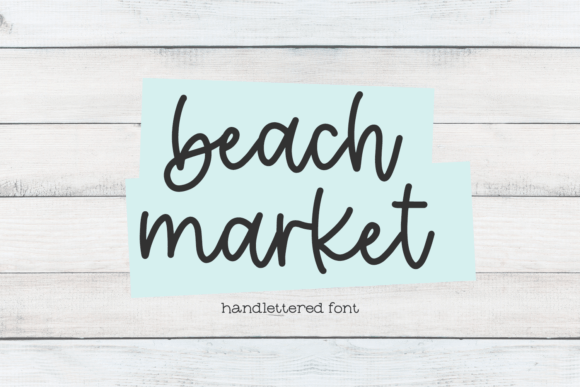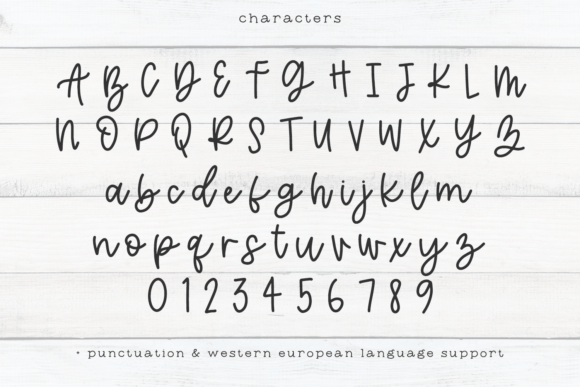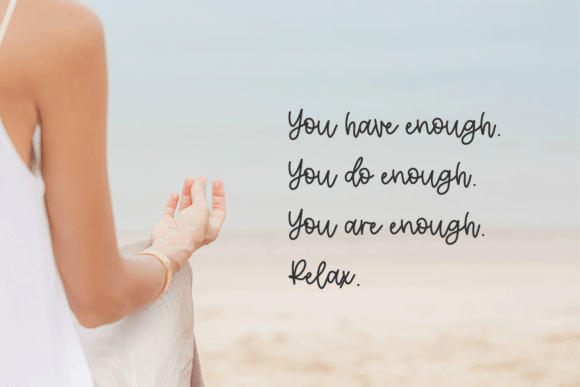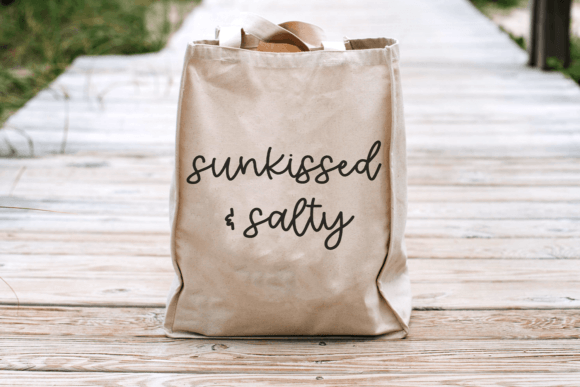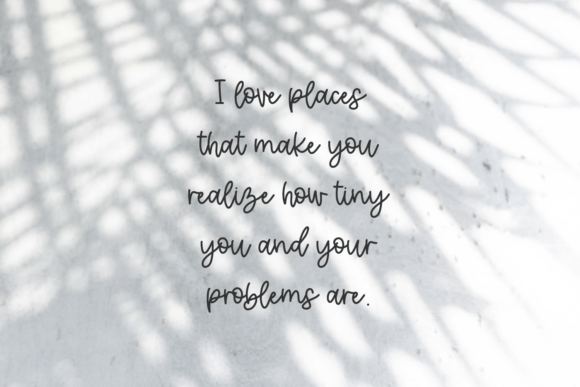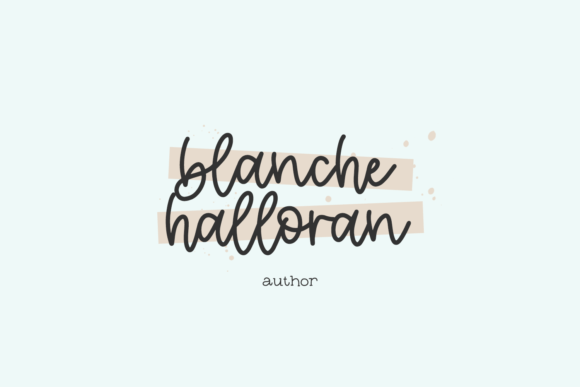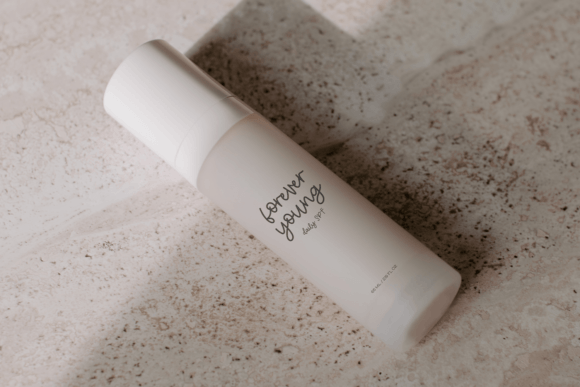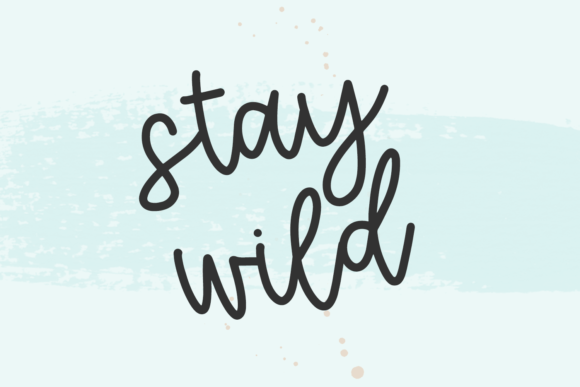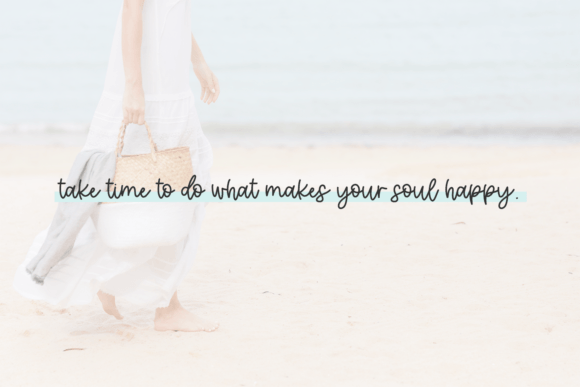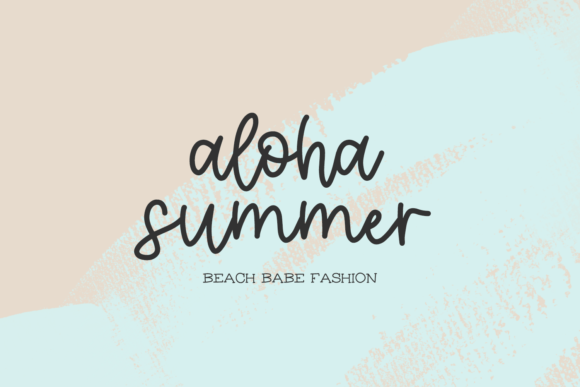
Beach Market Font
About Beach Market Font
Welcome to the charming world of Beach Market, a cute and feminine handwritten font masterfully designed to become a true favorite. This font is poised to elevate each of your creative ideas to the highest level, adding a touch of sweetness and charm to your projects.
Beach Market stands out with its cute and feminine aesthetic. The handwritten style brings a sense of authenticity and warmth to your text, making it a perfect choice for a wide range of creative endeavors. Whether you’re working on invitations, branding, social media graphics, or any project that requires a touch of cuteness, Beach Market is crafted to shine.
The appeal of Beach Market lies in its potential to become a favorite among those who appreciate the beauty of feminine handwritten fonts. Its design adds a level of sweetness that can enhance the visual appeal of your creations, making them more delightful and charming.
Consider Beach Market not just as a font but as a creative companion that brings a sense of cuteness to your projects. Its masterful design sets it apart as a font that has the potential to become a true favorite for a variety of applications. Let Beach Market be the font that adds a touch of femininity and charm to your creative ideas.